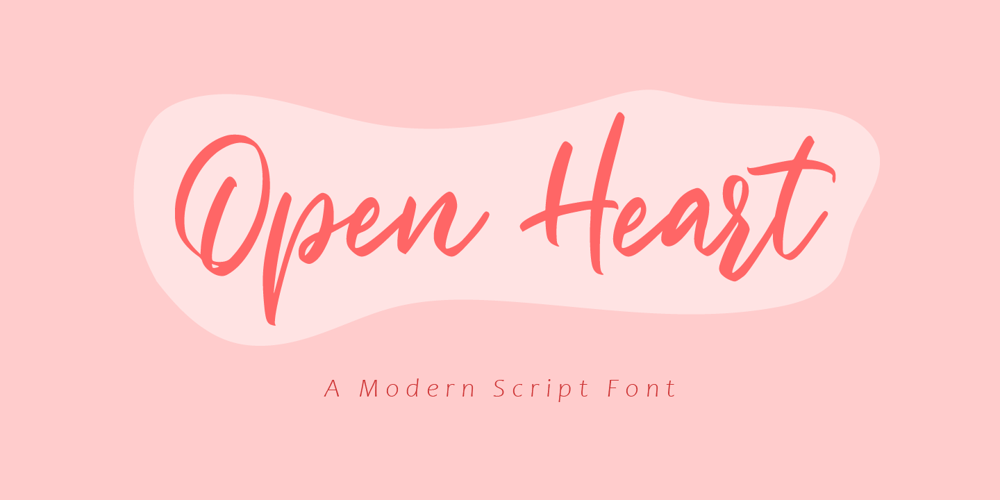
Open Heart Font Family was designed by Amin Maryono and published by Aminmario Studio. Open Heart contains 2 styles and family package options. Open Heart is a modern and beautiful script font. Comes with regular and italic, also support multilingual.This font is great for your creative projects such as watermark on photography, and perfect for logos & branding, photography, invitation, watermark, advertisements, product designs, stationery, wedding designs,label, product packaging, social media, movie titles, books titles, a short text even a long text letter and good for your secondary text font with sans or serif. And also for special events or anything that need handwritting taste.Thanks for checking out this font. I hope you enjoy it!